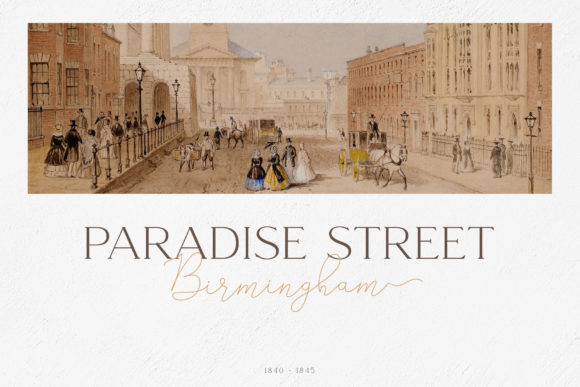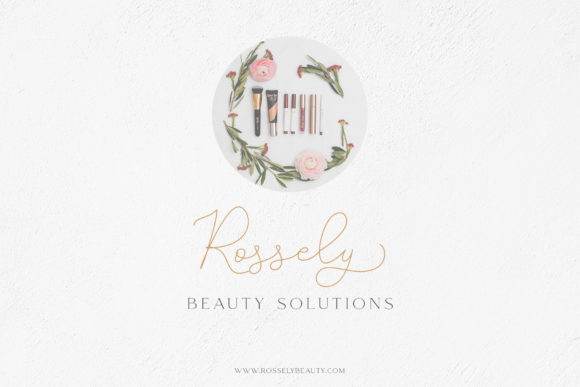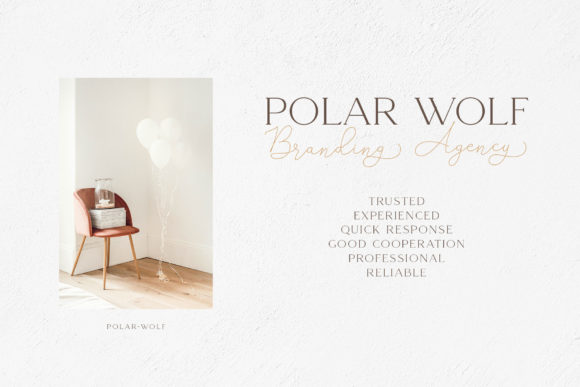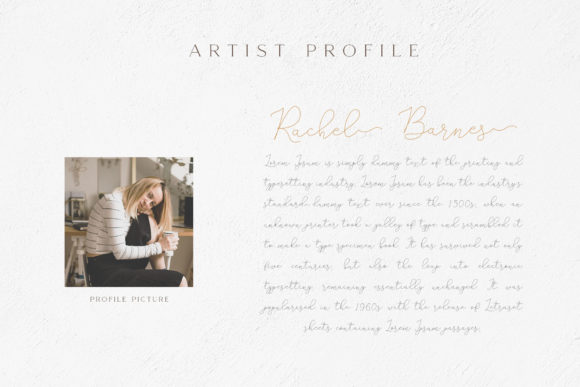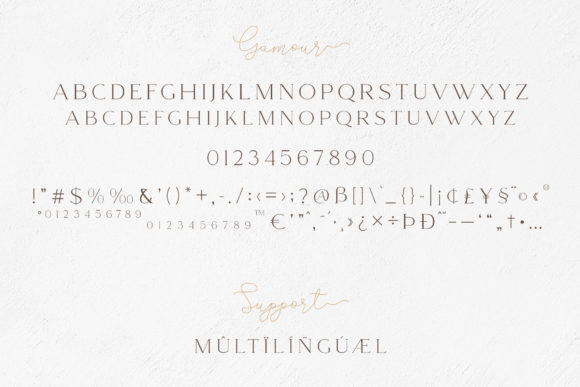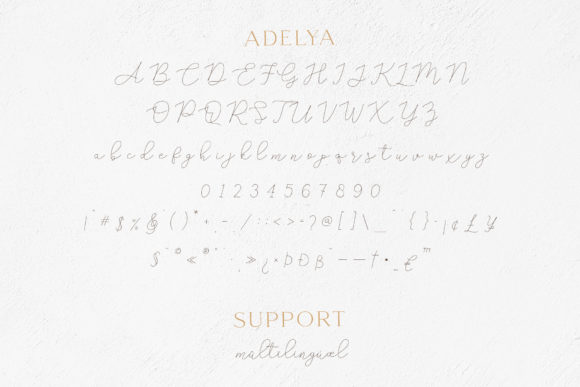
Introduction to Gamour Font
Gamour is a lovely and elegant serif font.
It is perfect for illustrations, posters, logos, book covers and much more Include this font in your next project and give it a professional look.
Key Features of Gamour Font